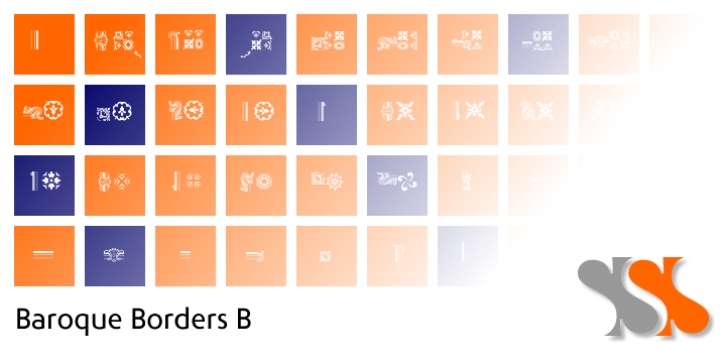
Publisher: preussTYPE
PT Baroque Borders B is a baroque ornament-font for borders.
Especially in combination with Fleischmann Gotisch you can made very impressed greeting cards, wedding-greetings or decorative certificates.